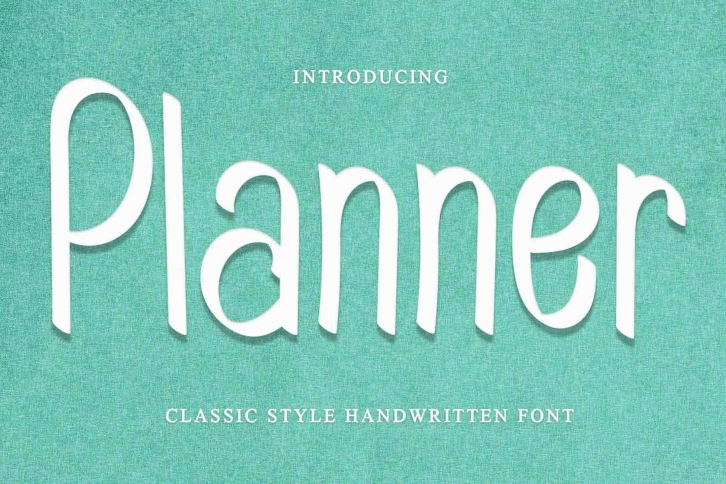
Planner FONT Download
Planner is a gorgeous font that was realeased on January 24, 2022. The font can be used in many style contexts and design environments. Perfect for invitations, magazines, websites, logos, and more! It was designed by Giart Studios and the file size is 12.86 MB. Thanks for checking out this font!